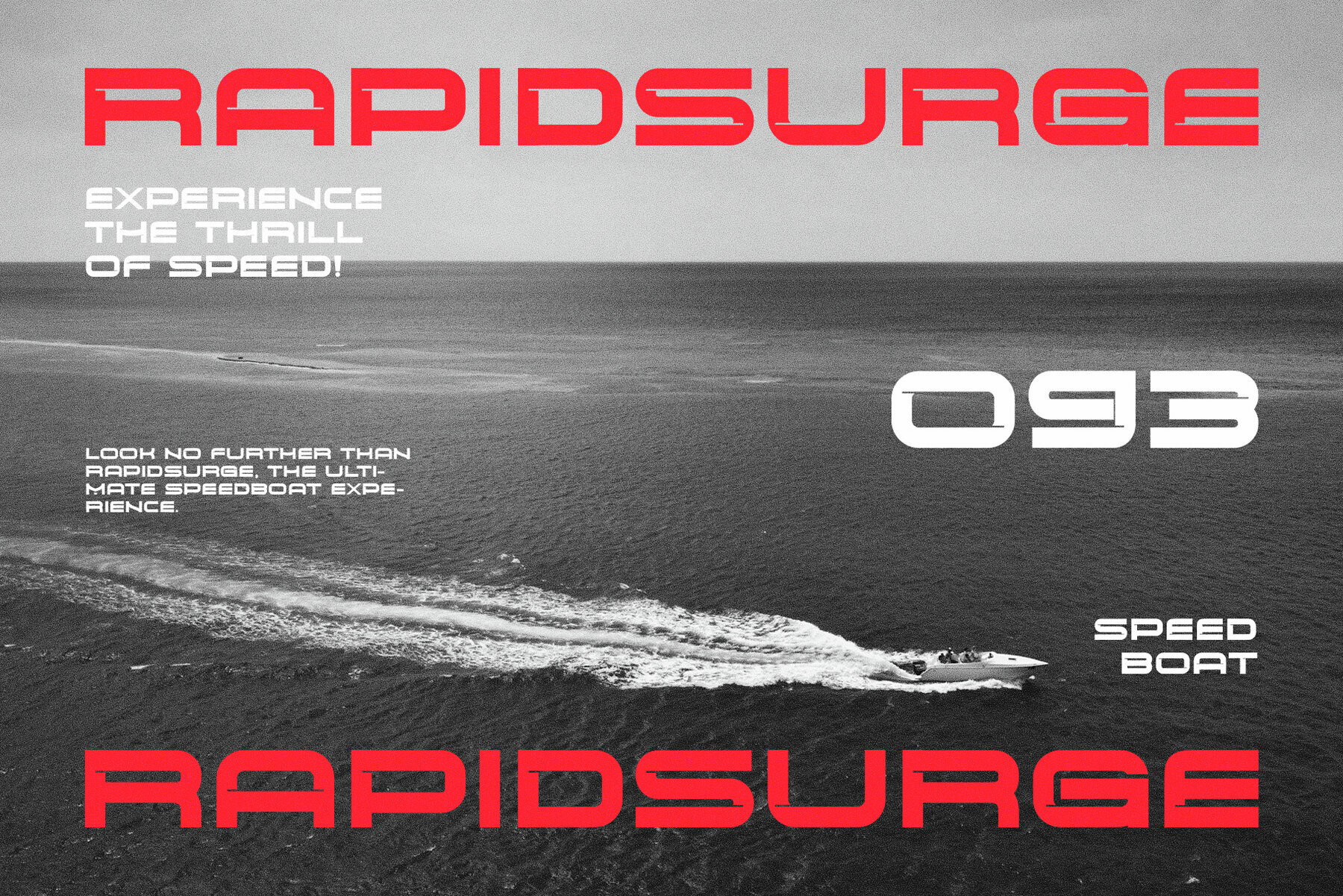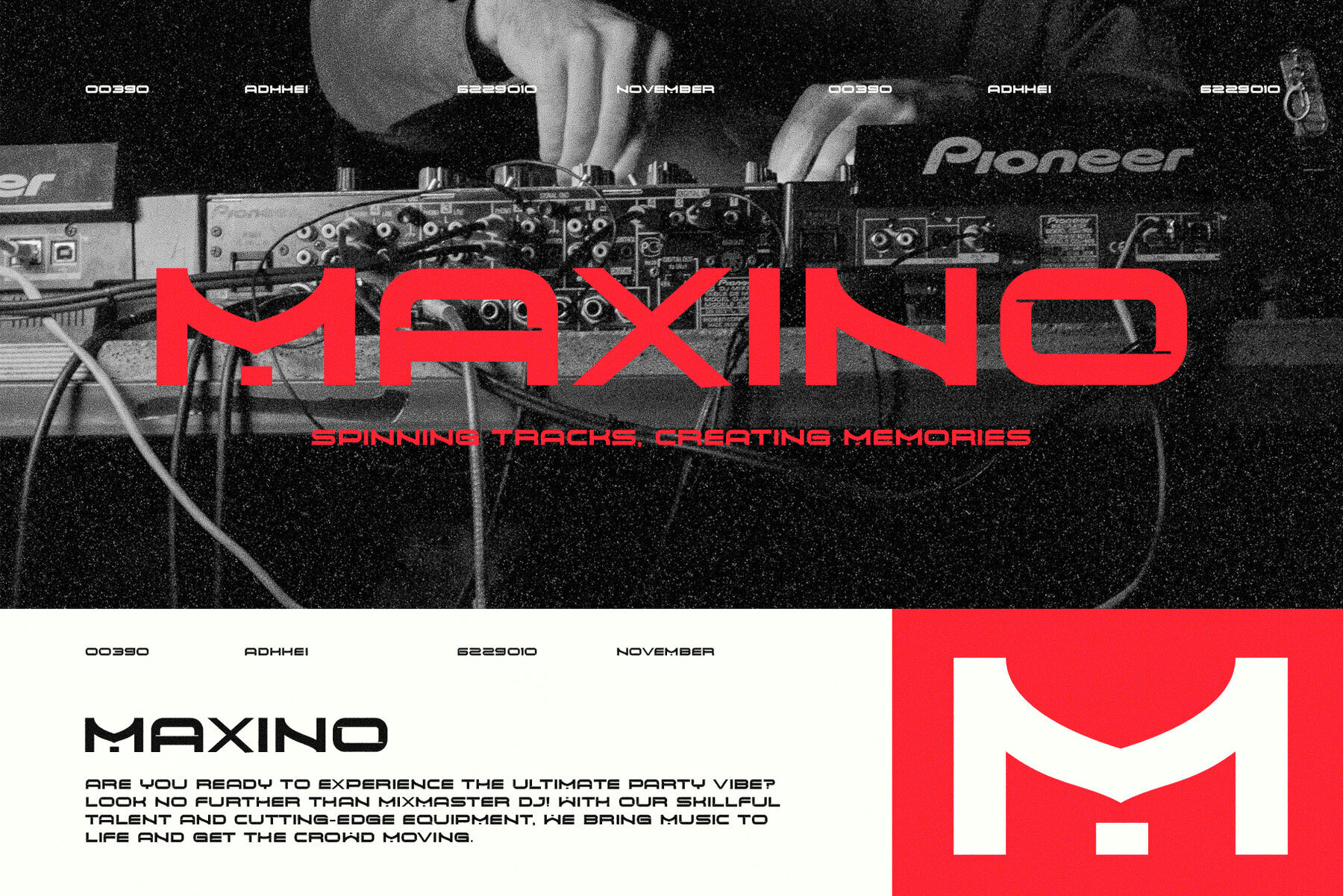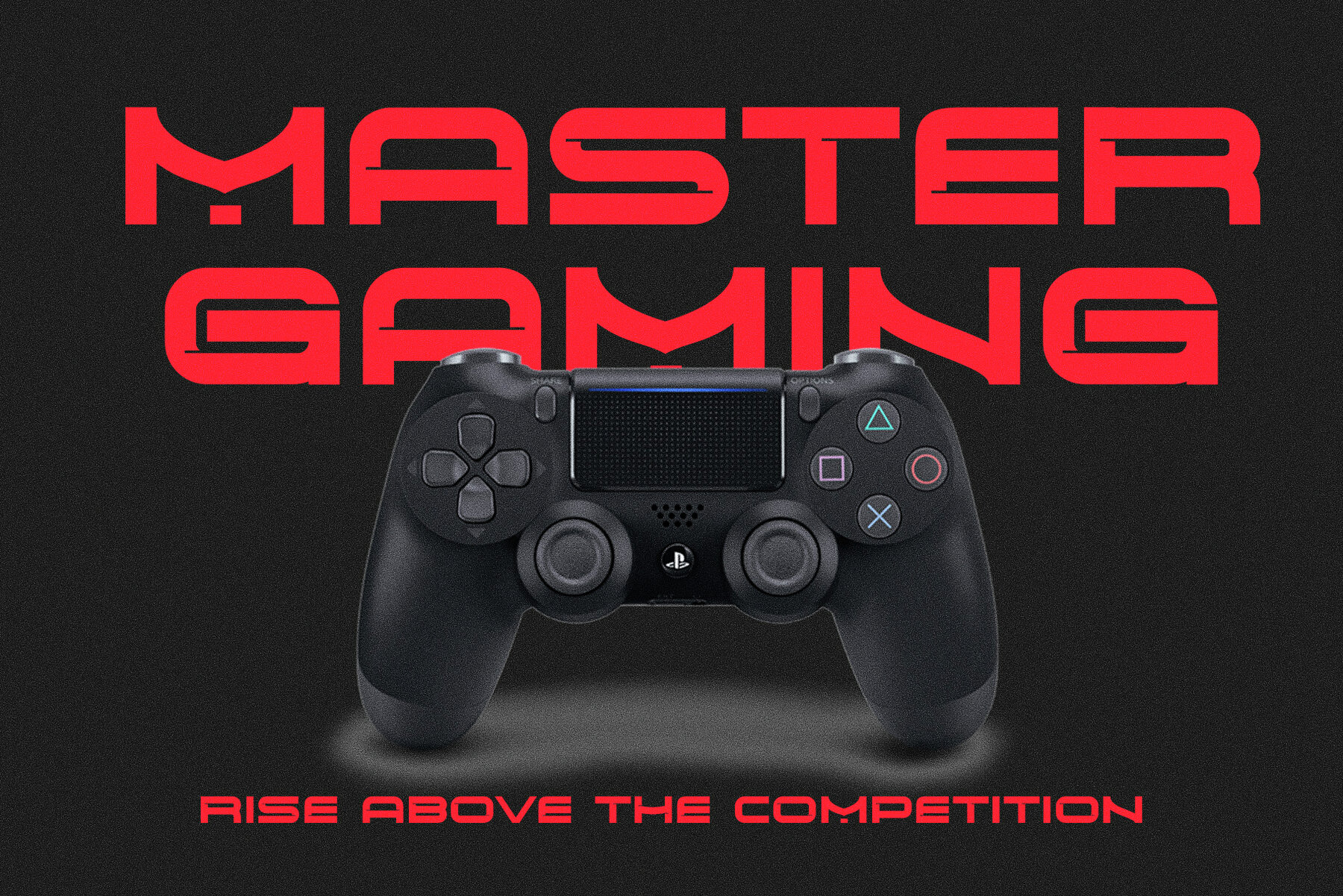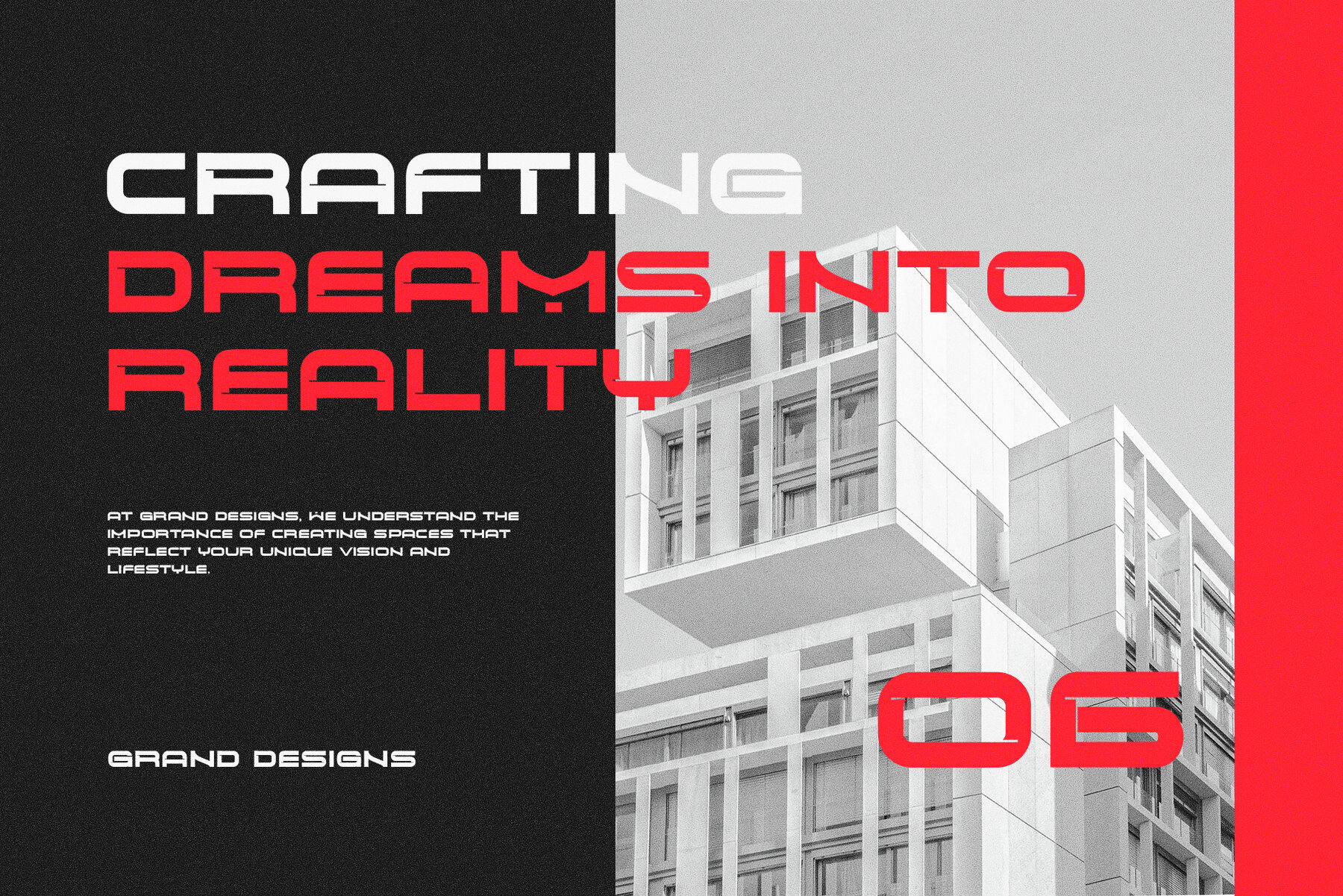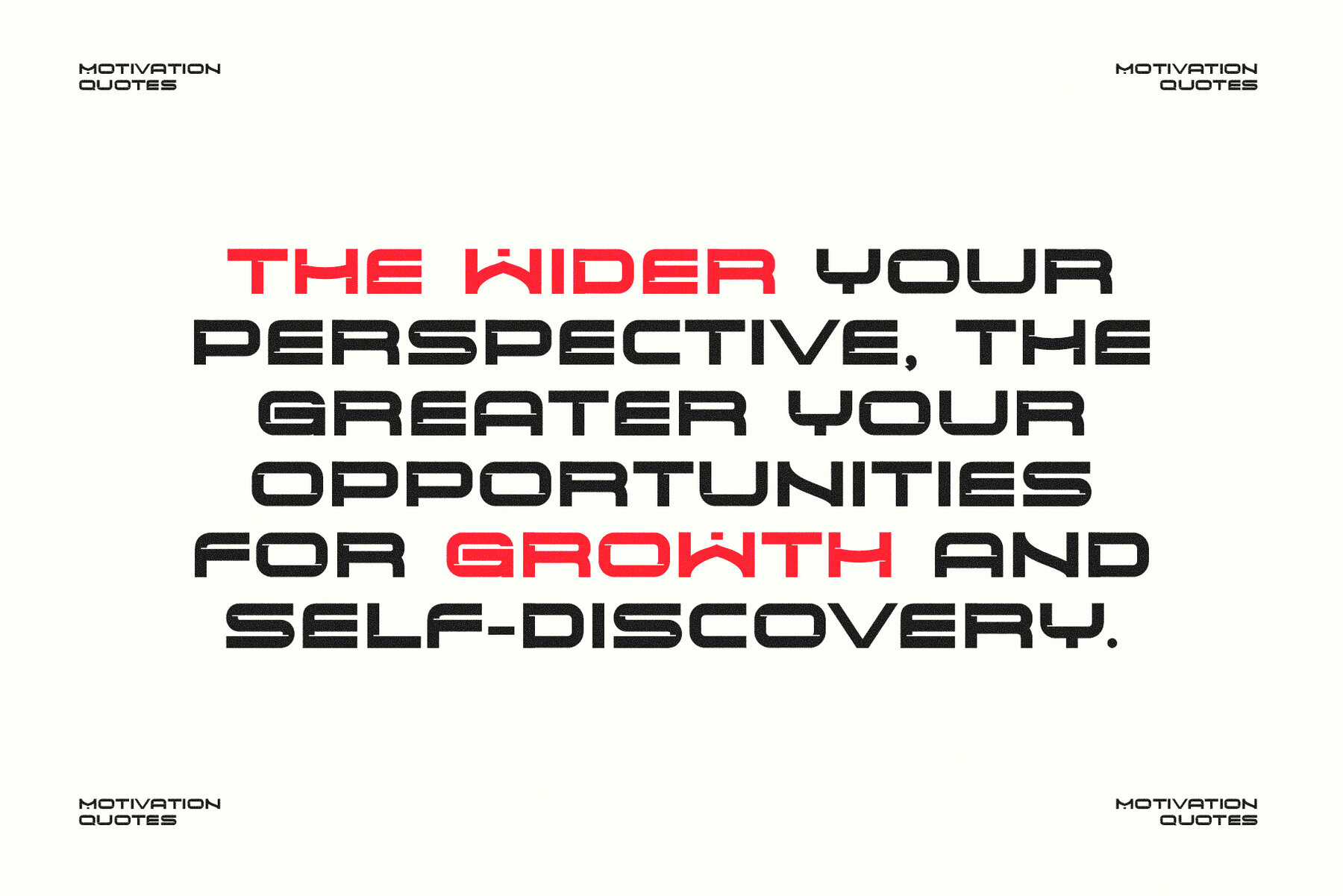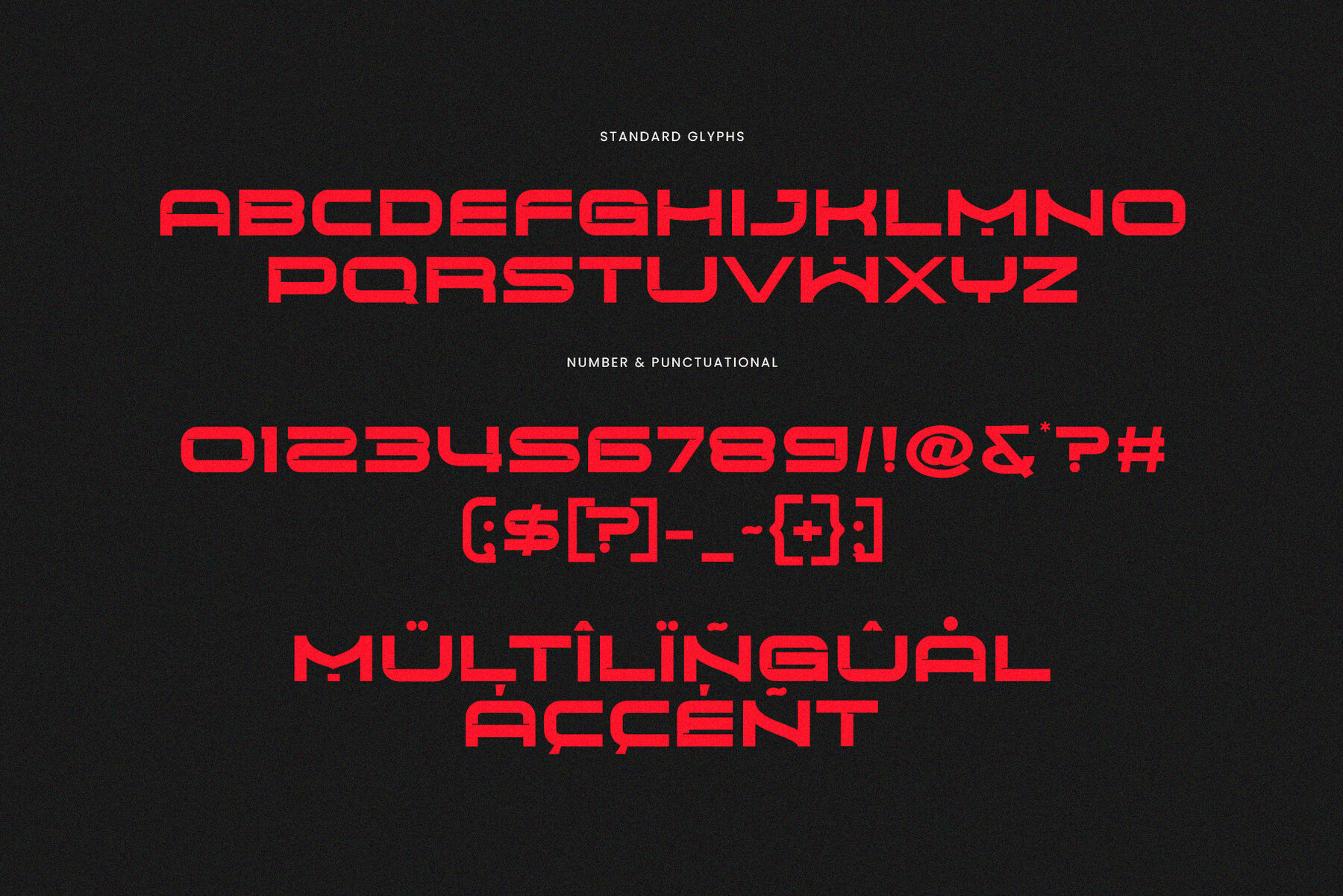
Womes Font
Womes Regular
Womes is a meticulously designed sans serif font engineered for high readability and visual balance. Its clean, precise design makes it ideal for a wide range of branding applications, including brochures, videos, advertising, logos, magazines, layouts, posters, templates, and games. Key features include a comprehensive set of characters, numbers, punctuation, and accented characters for Western European languages. It is compatible with both PC and Mac. Adobe Illustrator or Adobe Photoshop is recommended for optimal use.